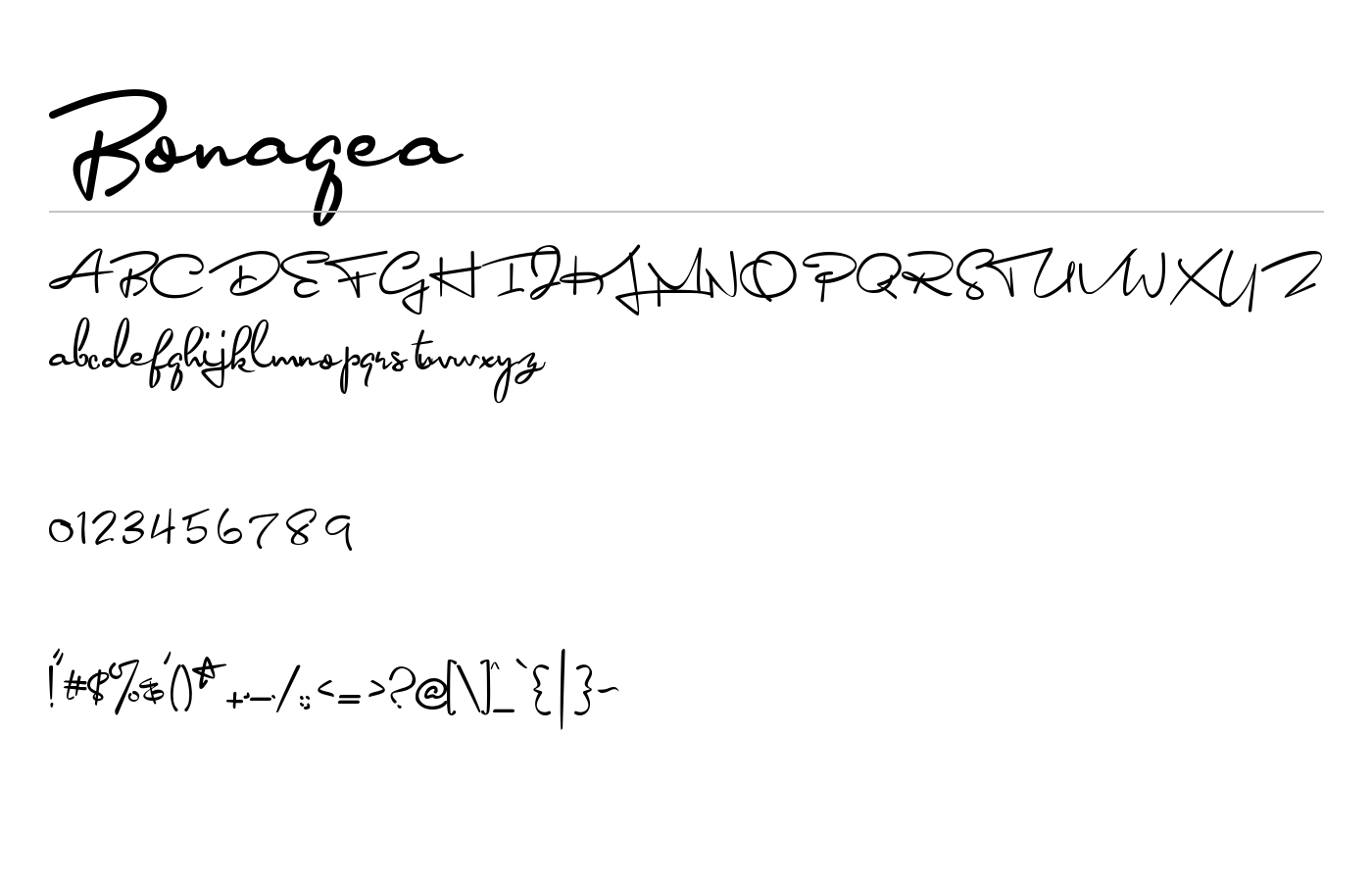
Bonagea is a lively, casual script font with a handwritten feel that blends playful energy with legible style. Its irregular strokes and fluid letterforms give it a personal, informal vibe ideal for creative projects, invitations, branding, and social media designs seeking a warm, approachable touch. This font works best in display uses where its unique, expressive character can shine.
| Font family | Bonagea Font |
| Designer | Taufiq |